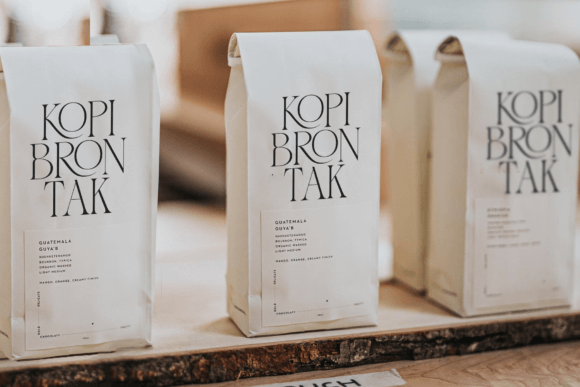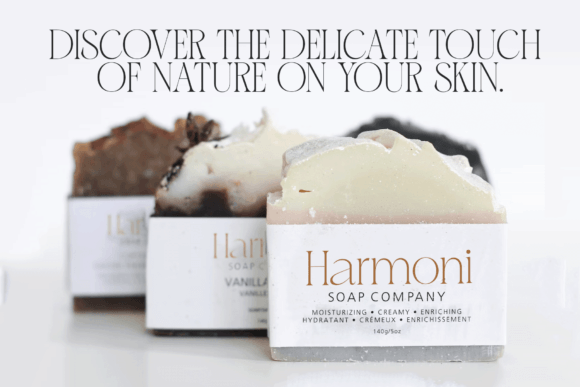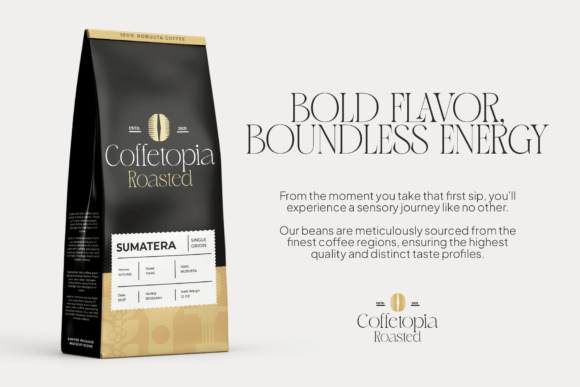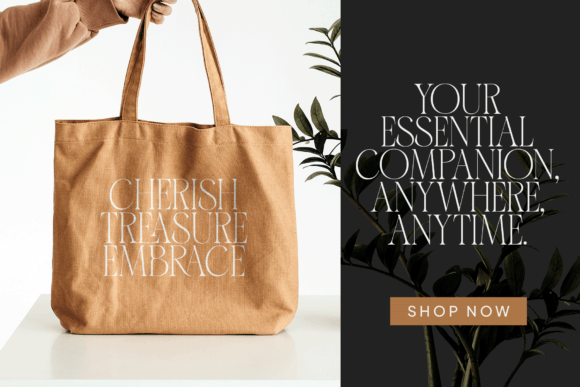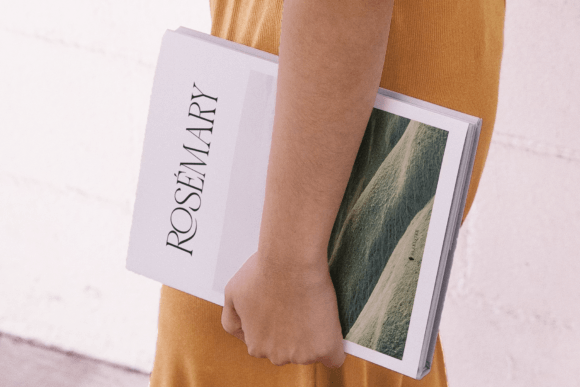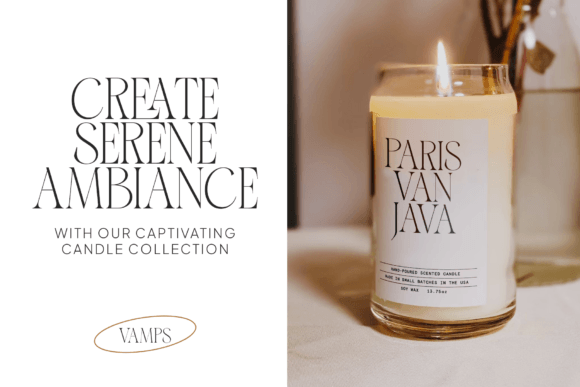
The Delicate Calligraphy Font: A Designer’s Dream Come True
Have you ever been working on a project, pouring your heart and soul into every detail, only to get stuck on one thing: the font? I know I have. It was for a wedding invitation design, and I wanted something that exuded elegance and sophistication. After hours of scrolling through font libraries, I stumbled upon Delicate Calligraphy, and it was love at first sight! ✨
- ✨ Elegant and sophisticated design: Delicate Calligraphy is a stylish and elegant serif typeface that adds a touch of luxury to any project.
- ✅ PUA encoded: This means you can access all the amazing glyphs and ligatures with ease, making it perfect for creative projects.
- 🔥 Versatile: From branding projects and logos to wedding designs, social media posts, and product packaging, this font is perfect for any project that needs a touch of modern taste.
While Delicate Calligraphy is an amazing font, there are a few things to keep in mind: ⚠️
- 🤔 Some characters may not work well in smaller sizes: As with any elegant script font, some characters may not render well in smaller sizes, so it’s best to use it in larger sizes for optimal results.
- ⚠️ May require manual kerning: Depending on the project, you may need to adjust the kerning to get the perfect look.
The Story Behind Delicate Calligraphy
Delicate Calligraphy was designed by a team of skilled typographers who wanted to create a font that exuded elegance and sophistication. With a focus on clean lines, beautiful curves, and precise details, they crafted a font that would be perfect for creative projects. The result is a stunning serif typeface that’s both modern and timeless.
| Font Name | Delicate Calligraphy Font |
| Author | Vampstudio |
Q: Is Delicate Calligraphy suitable for body text?
A: While Delicate Calligraphy is an elegant font, it’s best suited for headings, titles, and emphasis. For body text, a clearer font may be more suitable.